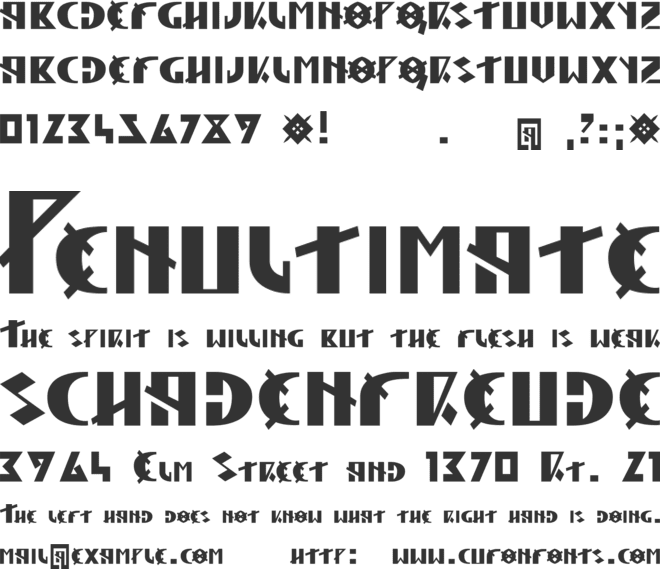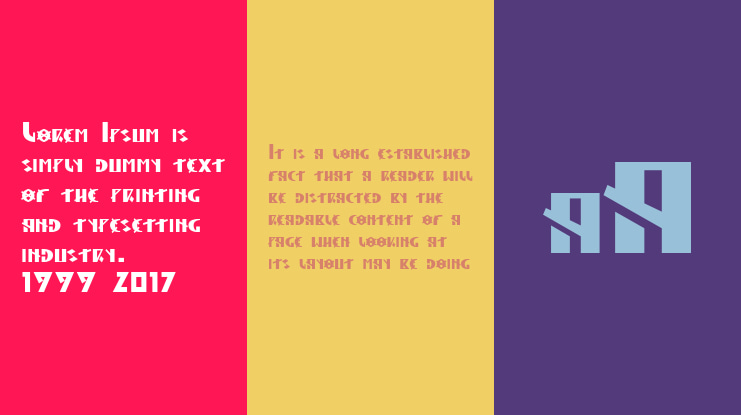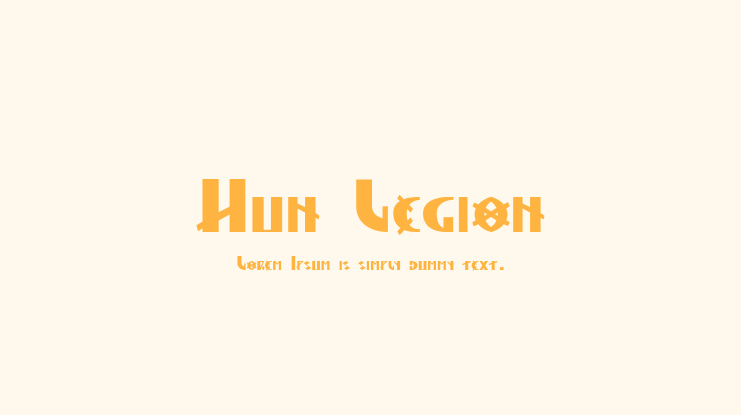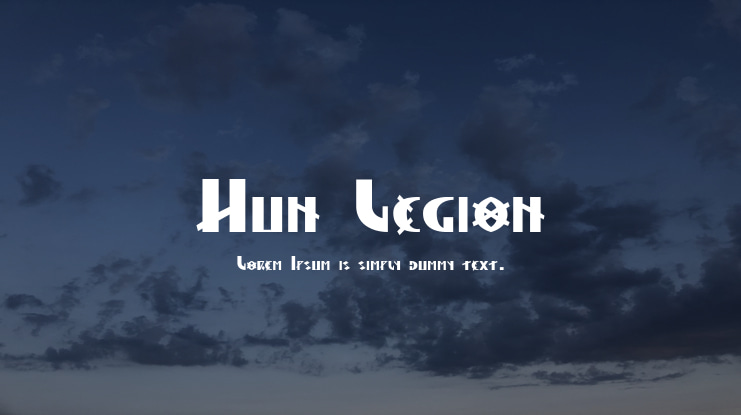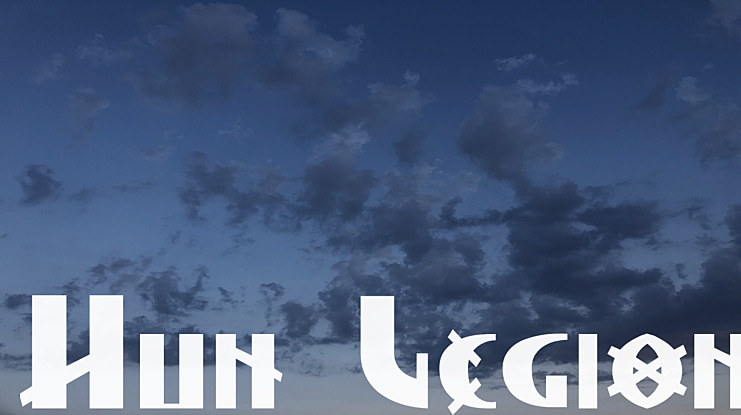
Hun Legion Font
Roland Huse
HUN LEGION is inspired by ancient hungarian runes (rovás) There were no small caps in runes, so I just scaled them smaller. The font is related to my previous font Hargita. Future updates may follow!